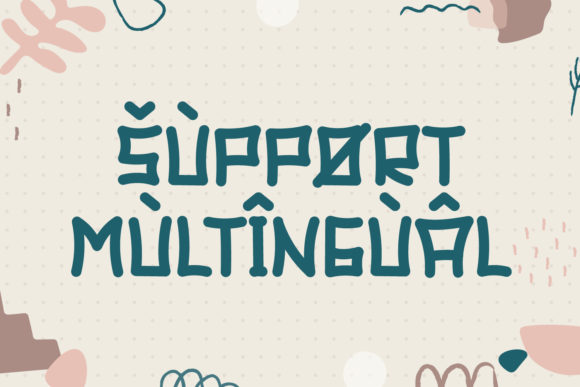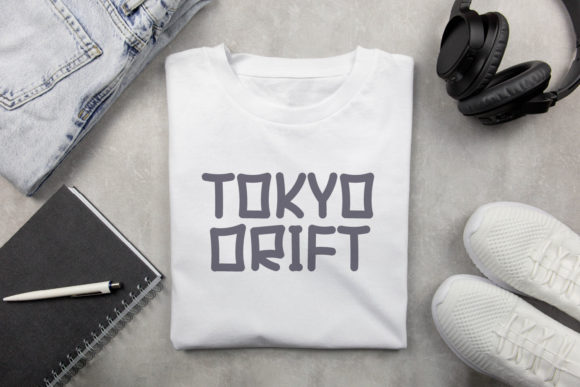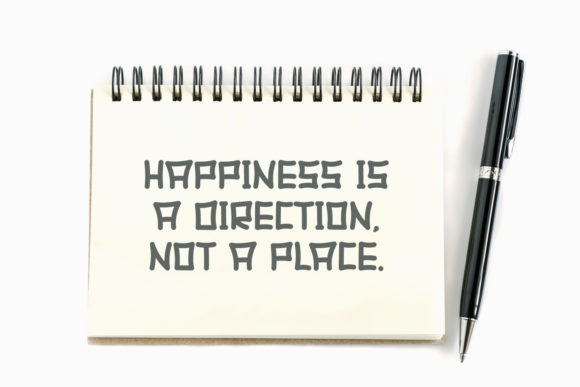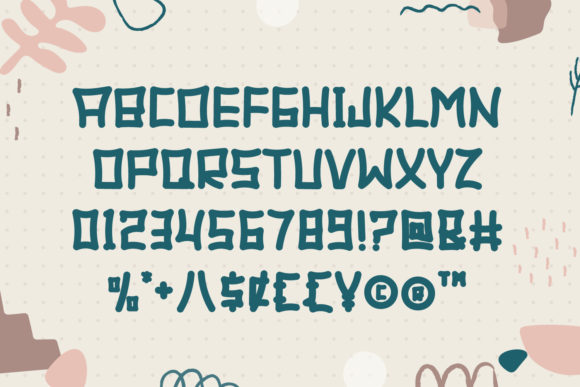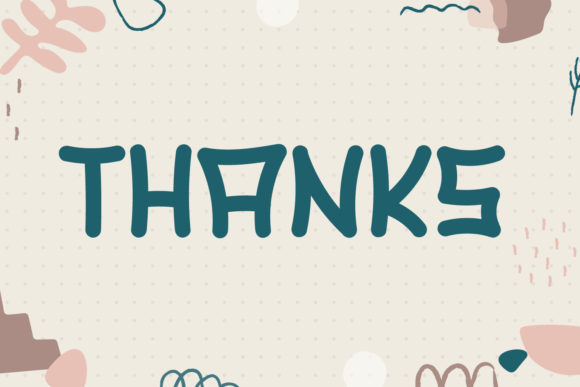
Introducing Comic Brown Font: Adding a Playful Touch to Your Designs
Are you tired of using the same old fonts in your designs? Do you want to add a touch of whimsy and fun to your creations? Look no further than Comic Brown Font! This delightful display font is sure to bring your designs to life with its unique and quirky style.
What is Comic Brown Font?
Comic Brown Font is a fun and quirky looking display font that is perfect for adding a playful touch to your designs. Its squared letters and neat style make it a great choice for designers and crafters who want to add some personality to their work. Whether you’re creating a logo, a poster, or a social media graphic, Comic Brown Font is sure to make your design stand out.
Key Features of Comic Brown Font
- Squared Letters: Comic Brown Font features squared letters that give it a unique and modern look.
- Neat Style: The font has a neat and clean style that makes it easy to read and understand.
- Playful Touch: Comic Brown Font adds a playful touch to your designs, making them more engaging and fun.
- Display Font: This font is specifically designed as a display font, making it perfect for headlines, titles, and other attention-grabbing elements.
Why Use Comic Brown Font?
There are many reasons why you should consider using Comic Brown Font in your designs. Here are a few:
- Adds Personality: Comic Brown Font adds a touch of personality to your designs, making them more interesting and engaging.
- Versatile: This font is versatile and can be used in a variety of designs, from logos and posters to social media graphics and more.
- Easy to Read: Despite its playful style, Comic Brown Font is easy to read and understand, making it perfect for designs where you want to communicate a message.
- Unique: Comic Brown Font is a unique font that will help your designs stand out from the crowd.
How to Use Comic Brown Font?
Using Comic Brown Font is easy! Here are a few tips to get you started:
- Pair it with Other Fonts: Comic Brown Font pairs well with other fonts, so feel free to experiment with different combinations.
- Use it for Headlines: This font is perfect for headlines and titles, where you want to grab the attention of your audience.
- Add it to Your Brand: Consider adding Comic Brown Font to your brand identity, where it can help to add a playful touch to your logo and other marketing materials.
Who Can Benefit from Comic Brown Font?
Comic Brown Font is perfect for designers and crafters who want to add a playful touch to their work. Here are a few examples of who can benefit from this font:
- Graphic Designers: Graphic designers can use Comic Brown Font to add a unique touch to their designs, from logos and posters to social media graphics and more.
- Crafters: Crafters can use Comic Brown Font to add a playful touch to their craft projects, such as handmade cards, gift tags, and more.
- Small Business Owners: Small business owners can use Comic Brown Font to add a personal touch to their marketing materials, such as brochures, flyers, and more.
In conclusion, Comic Brown Font is a fun and quirky looking display font that is perfect for adding a playful touch to your designs. Its squared letters and neat style make it a great choice for designers and crafters who want to add some personality to their work. Whether you’re creating a logo, a poster, or a social media graphic, Comic Brown Font is sure to make your design stand out. So why not give it a try and see how it can add a touch of whimsy to your creations?